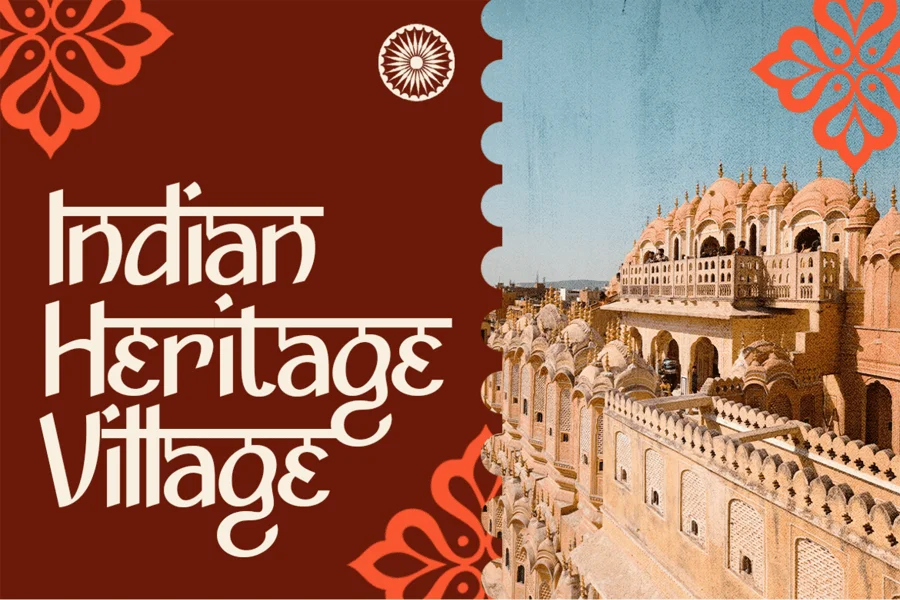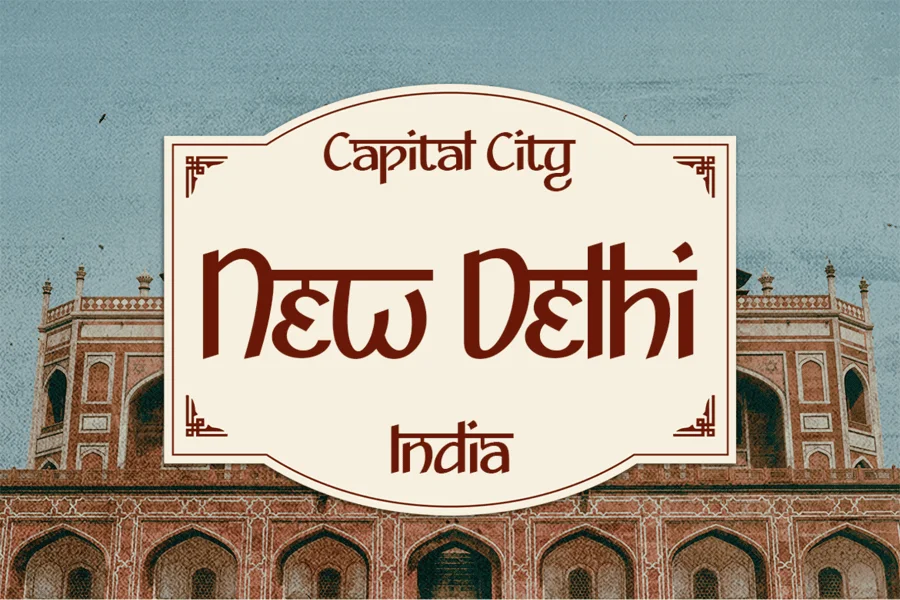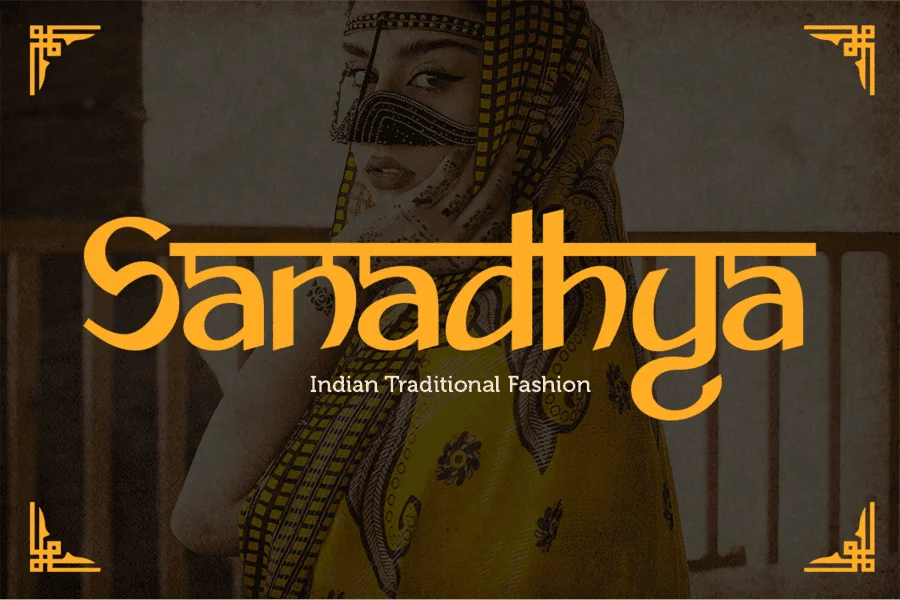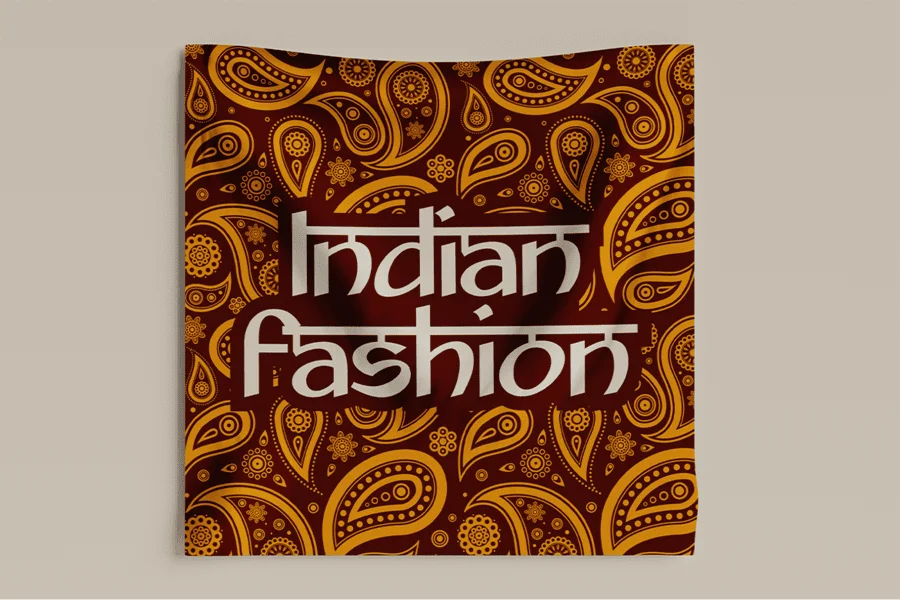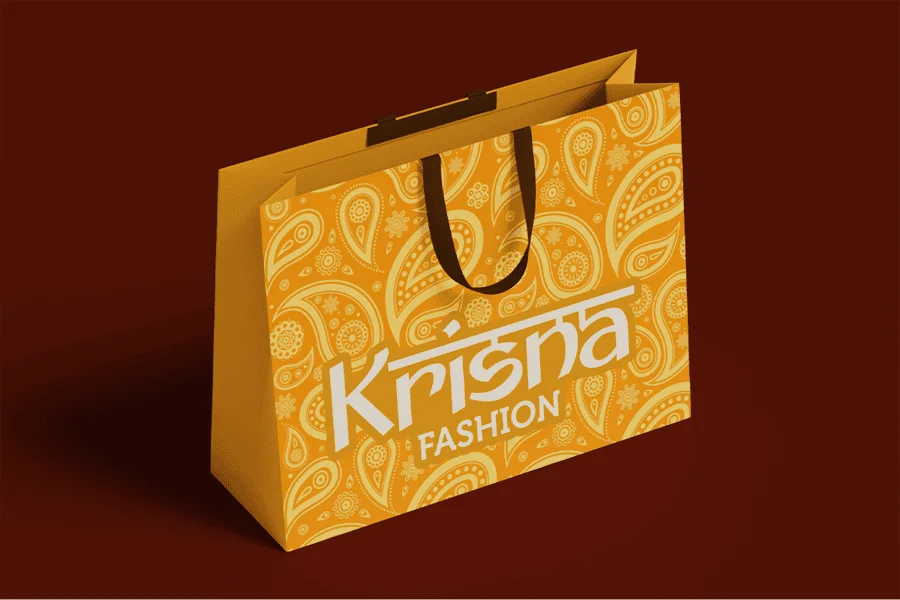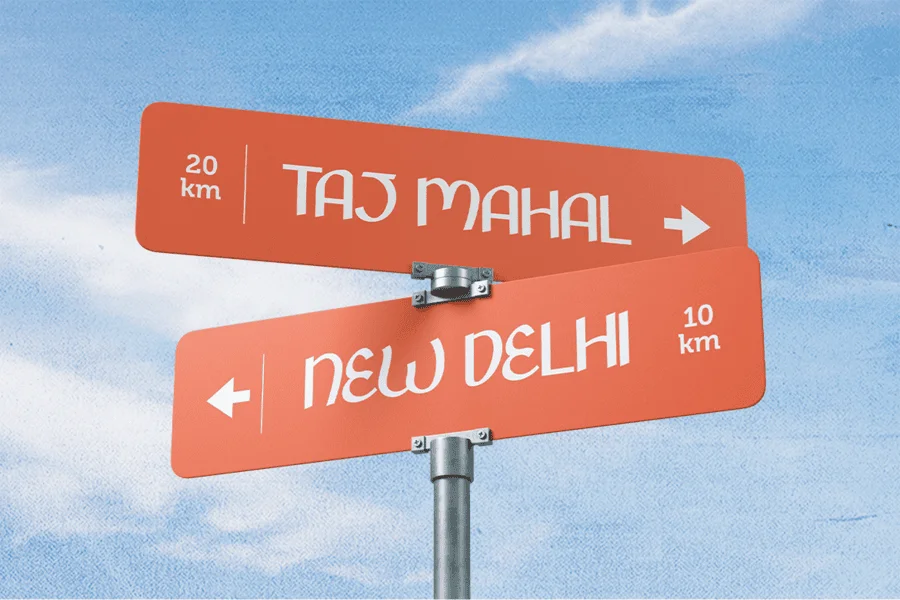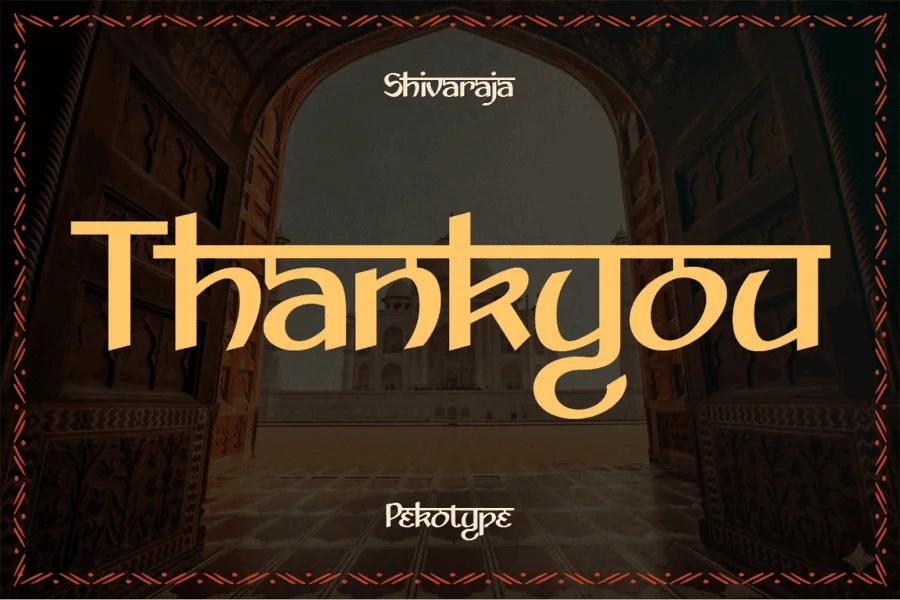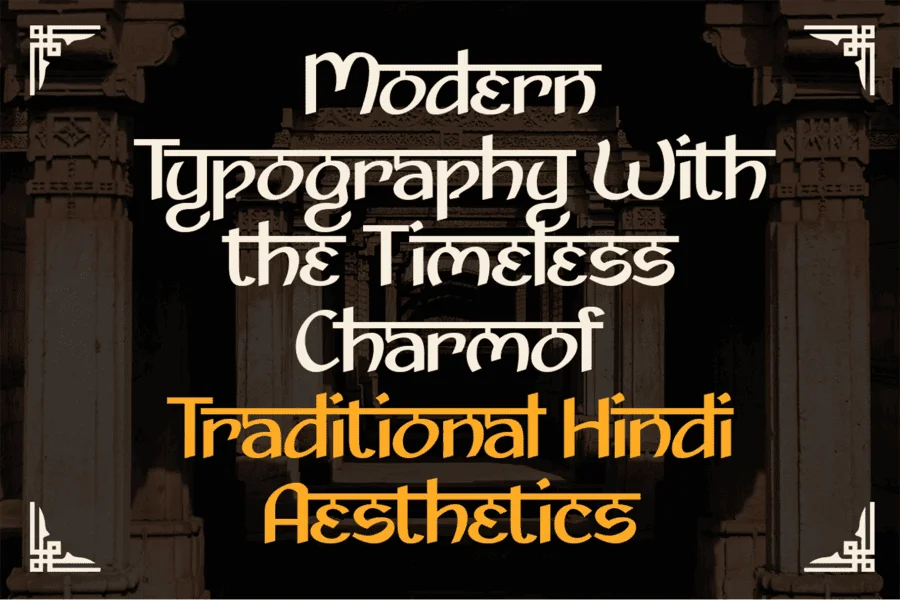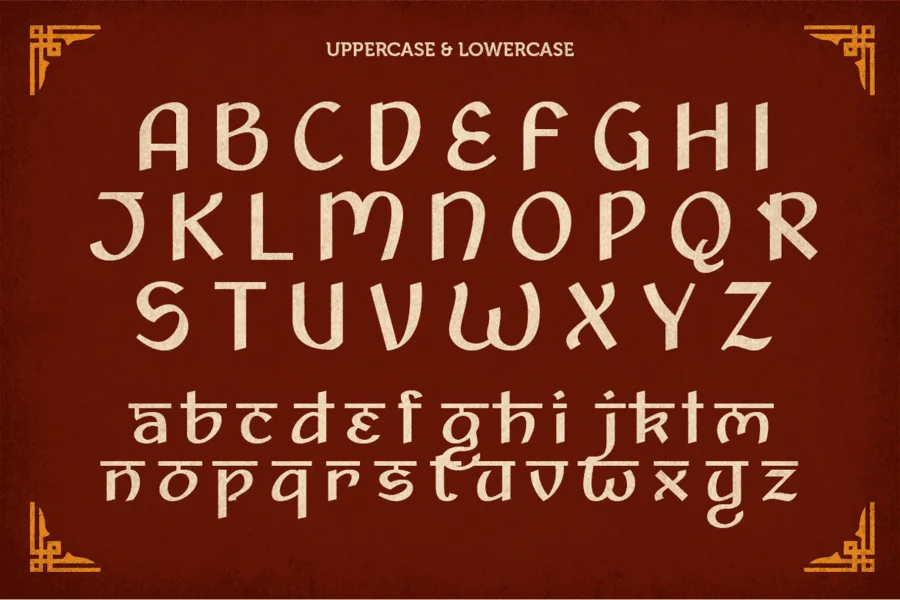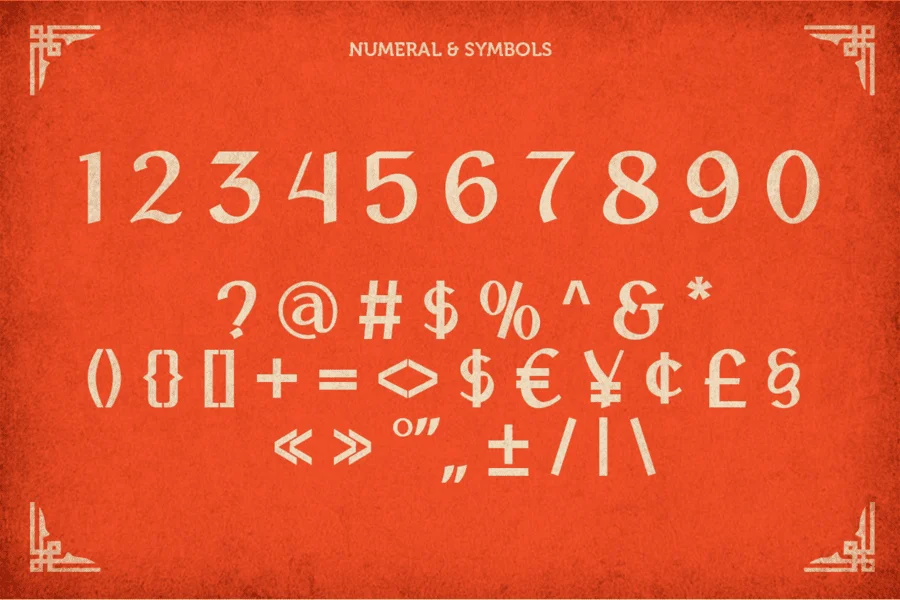
Introducing Shivaraja, a modern Hindi-inspired display font that blends traditional Indian elegance with contemporary design flair. Crafted with graceful curves, geometric precision, and an unmistakable cultural touch, Shivaraja captures the spirit of India’s artistic heritage while staying modern and versatile.
Perfect for branding, packaging, logos, posters, invitations, and social media, Shivaraja brings warmth, depth, and authenticity to every visual composition. Its balanced uppercase and lowercase set, combined with multilingual support, ensures smooth adaptability for diverse creative projects across global markets.